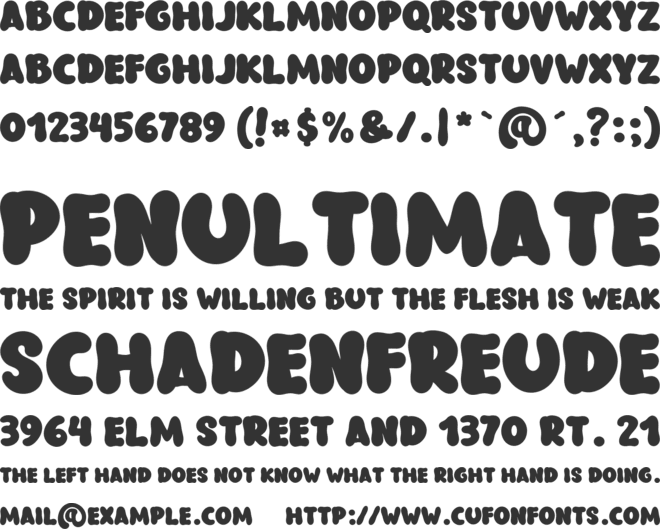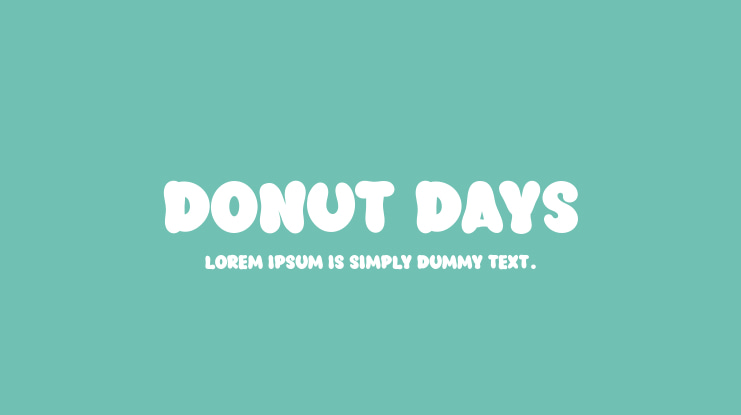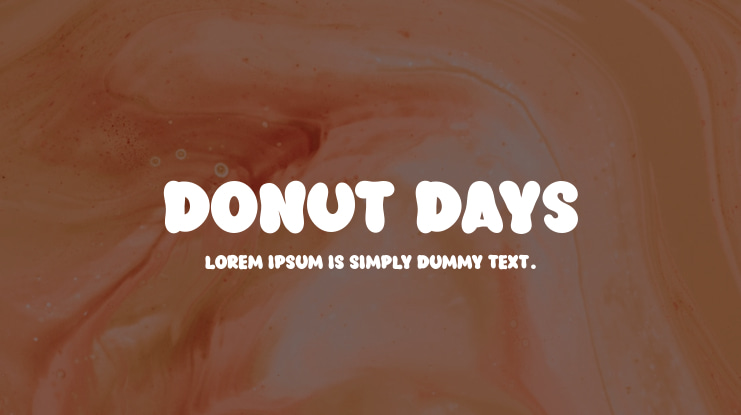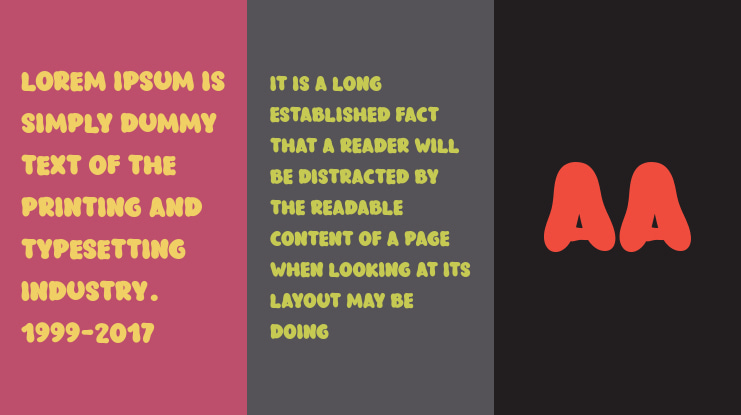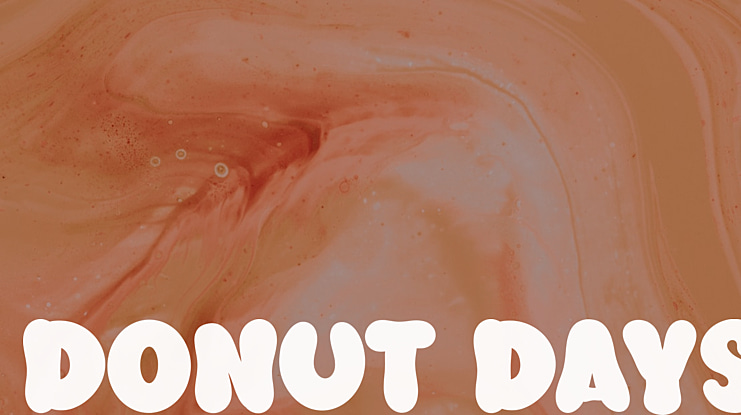
Donut Days Font
Donut Days is a fun and cute bold font. This font is perfect for a design that requires a playful and fun accent. Donut Days is suitable for merchandises, posters, packaging, stickers, logotype, and much more.